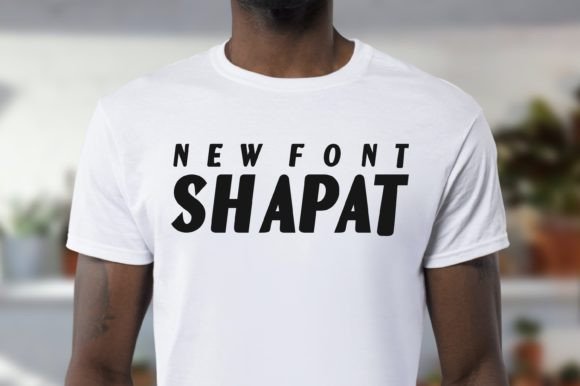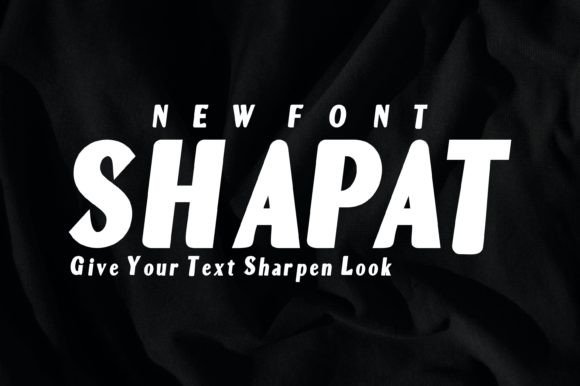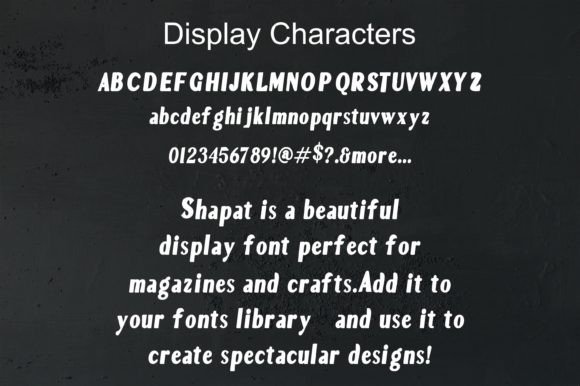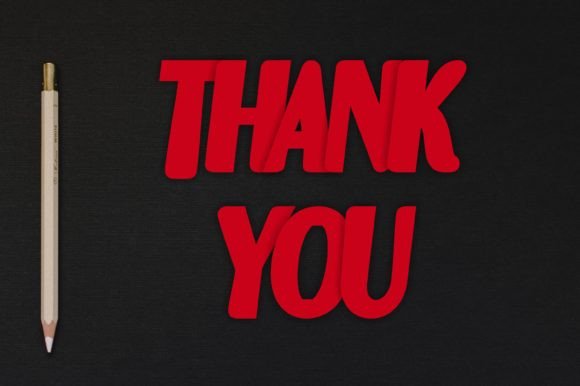
Introduction to Shapat Font
Have you ever stared at a blank canvas, eager to bring your creative vision to life, only to be limited by the right font to match your style? This is where the perfect design resource comes into play, and for those who love crafting unique and eye-catching designs, the Shapat Font is about to become your new best friend.
With its beautiful display style and versatility, Shapat Font is a high-quality addition to any designer’s library, perfect for magazines, crafts, and a wide range of creative projects. Whether you’re working on a freelance project or simply want to elevate your personal designs, this font is sure to bring a touch of sophistication and elegance to your work.
Key Features of Shapat Font
- High-quality, unique design for creative projects
- Transparent background for easy integration with any design resource
- Includes multiple weights and styles for versatile design applications
- Supports Latin and Cyrillic character sets for international design projects
Honest Review: Shapat Font
As a designer, I’m always on the lookout for high-quality design resources that can elevate my creative projects. Recently, I came across the Shapat Font, and I’m excited to share my honest review with you.
- ✨ The font is highly customizable, allowing you to easily adjust the size, color, and opacity to suit your design needs.
- ✨ The font features a transparent background, making it perfect for creating visually appealing graphics and designs.
- ⚠️ The Shapat Font is a bit limited in terms of font styles, which may not be suitable for complex design projects.
Overall, I’m impressed with the Shapat Font and would highly recommend it for simple to moderate design projects. Its high-quality design and transparent background make it a valuable addition to any designer’s toolkit. However, be aware of its limitations, and use it accordingly.
Tips for Getting the Most Out of Shapat Font
Experiment with different font sizes and colors to achieve a unique look. Use the font in combination with other design elements, such as images and shapes, to create a visually appealing design. Take advantage of the transparent background feature to create a seamless design.
The Shapat Font is ideal for creating logos, social media graphics, and presentations. It’s also suitable for use in design projects that require a high-quality, creative font with a transparent background.